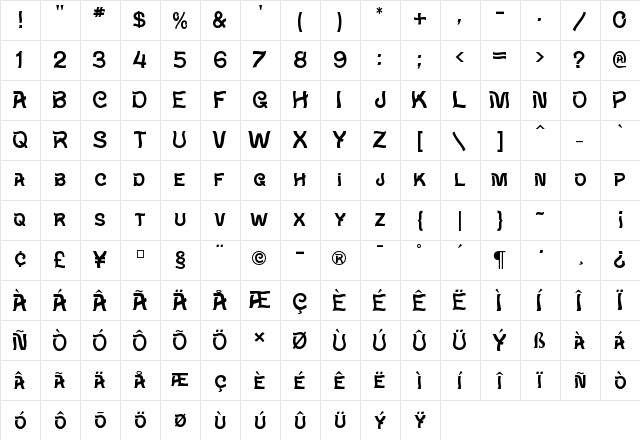
Waverly Regular
Complete Waverly Regular glyph index. Displaying only characters natively supported by Waverly Regular font.
Design Context for Waverly
Waverly is a composed and adaptable typeface that performs quietly and consistently across a wide range of design contexts.